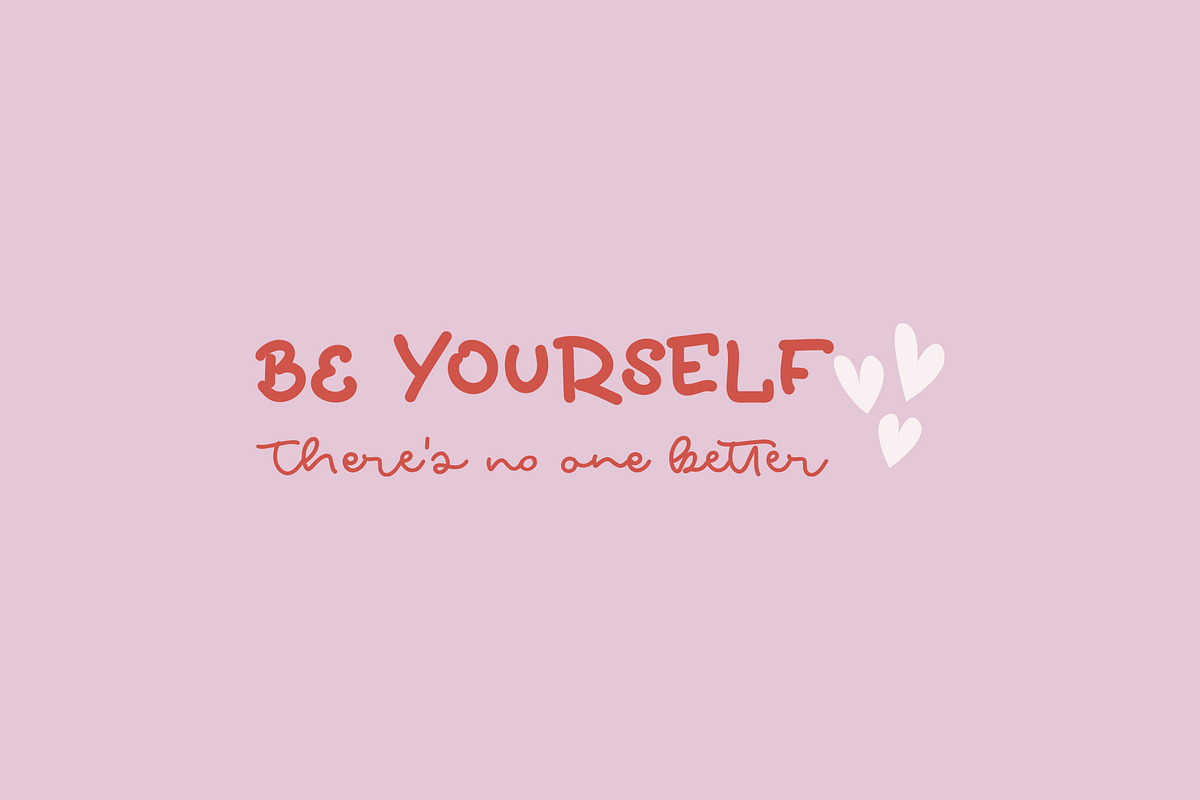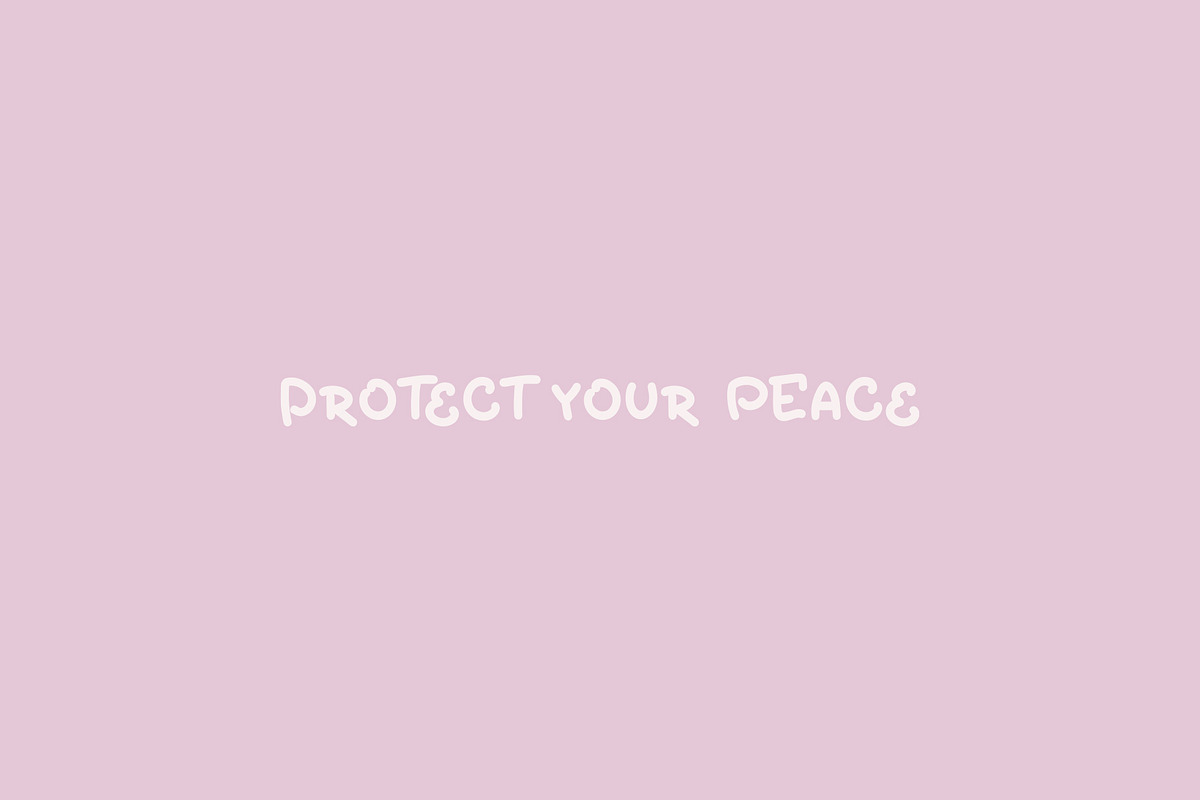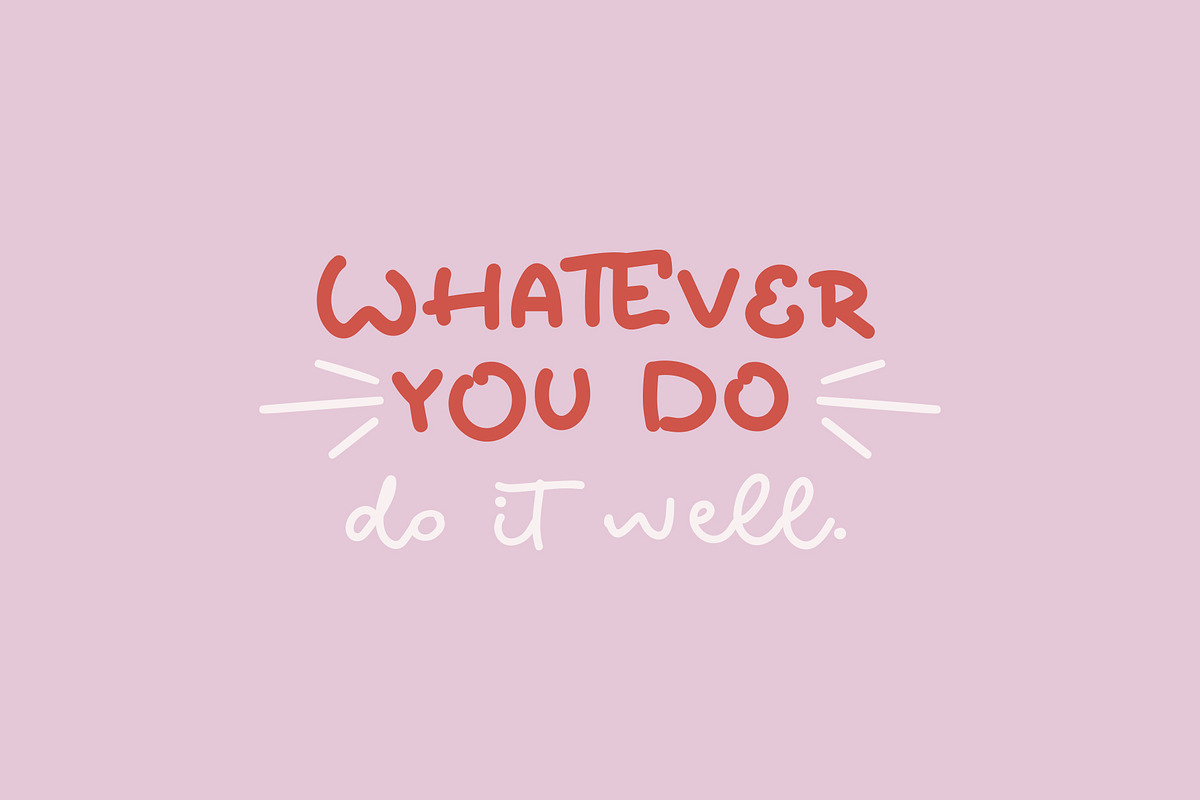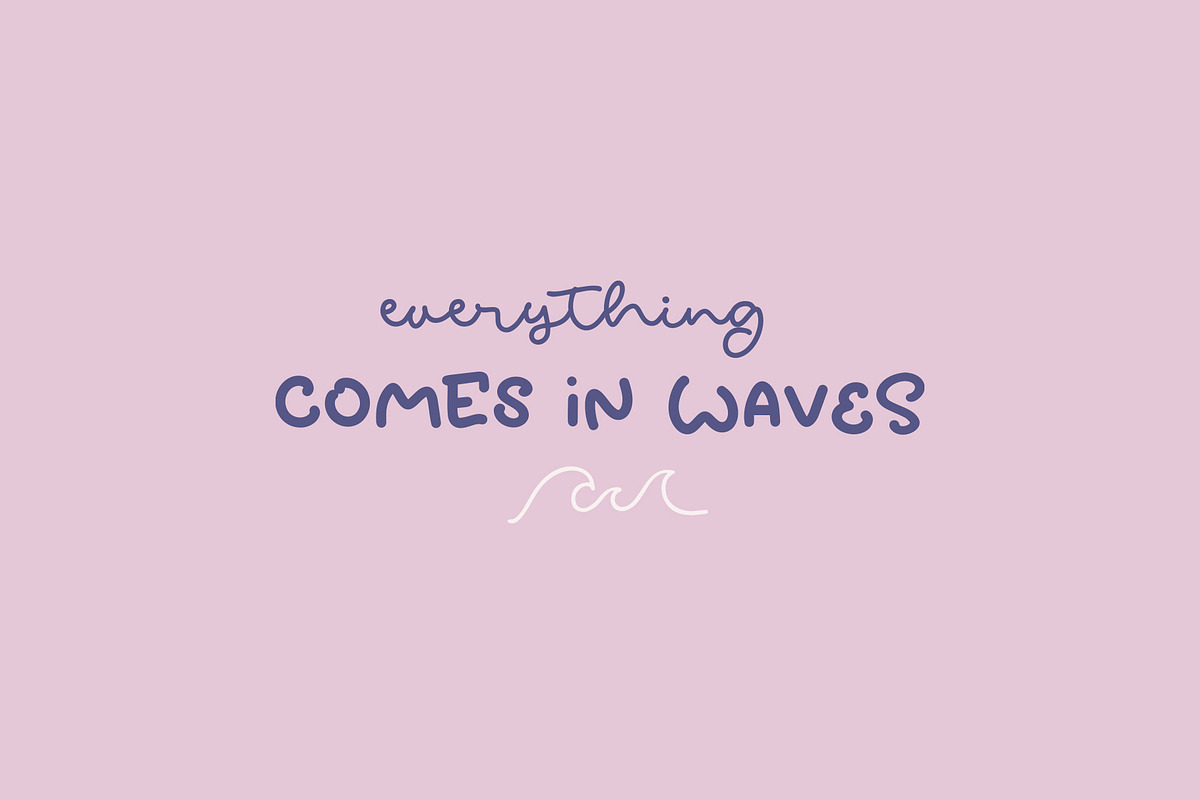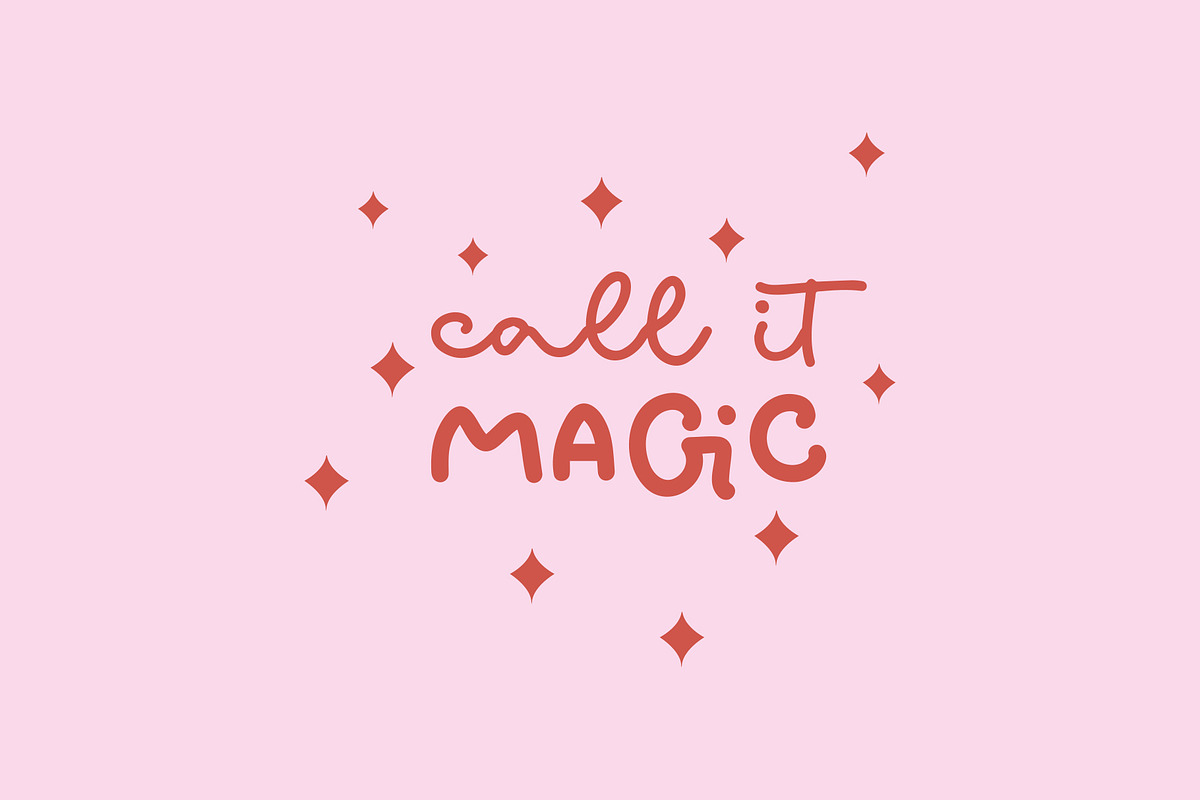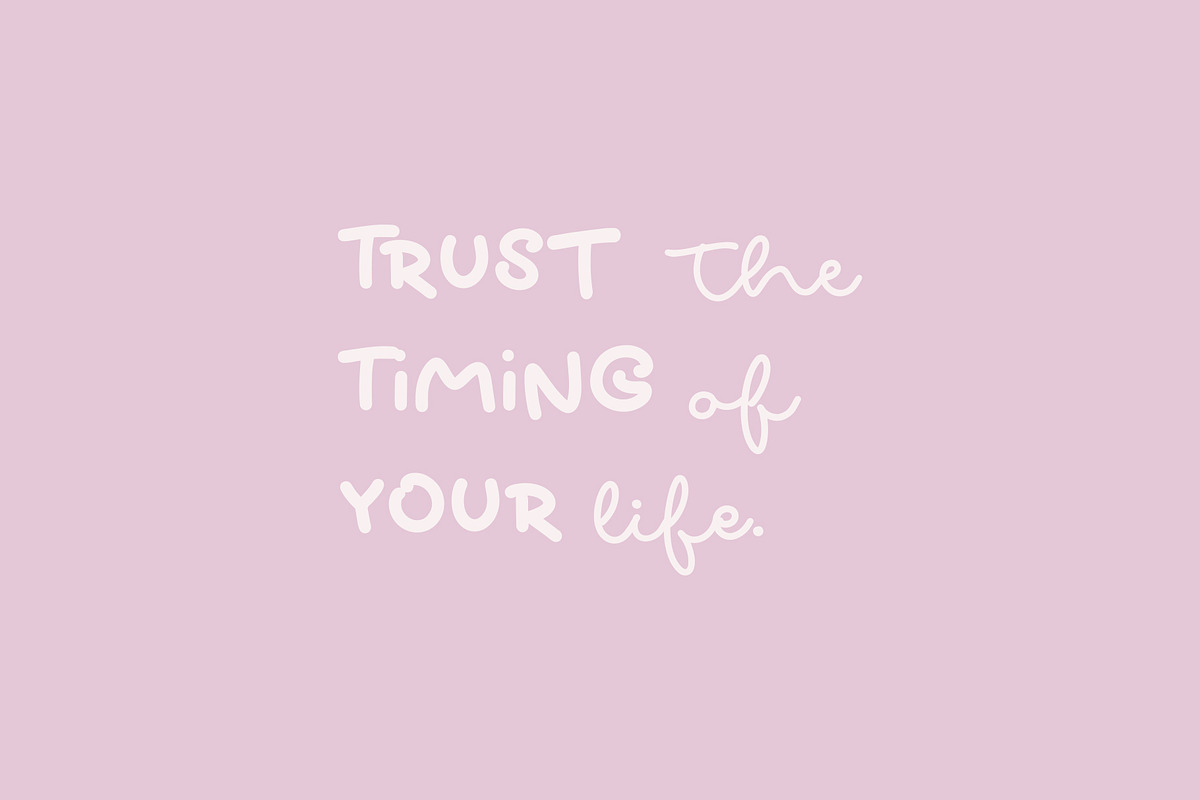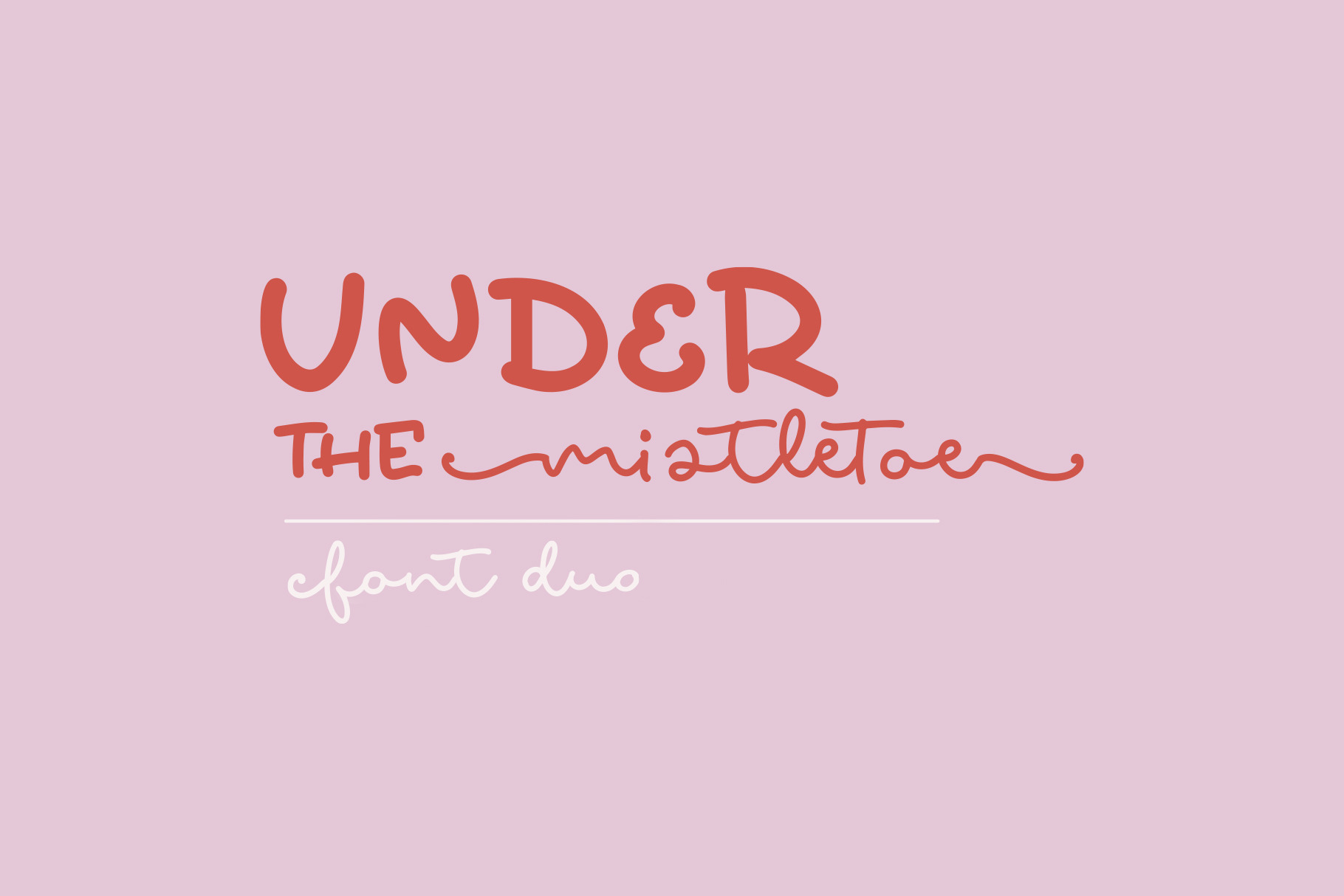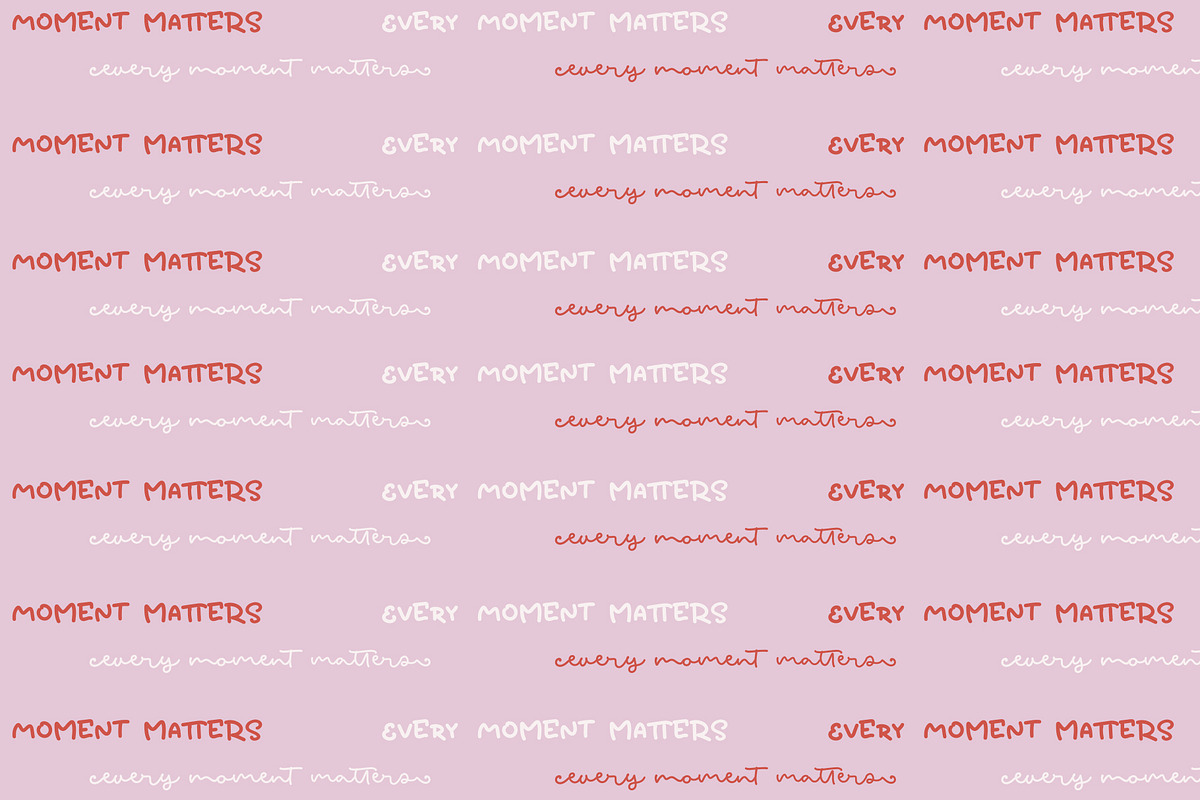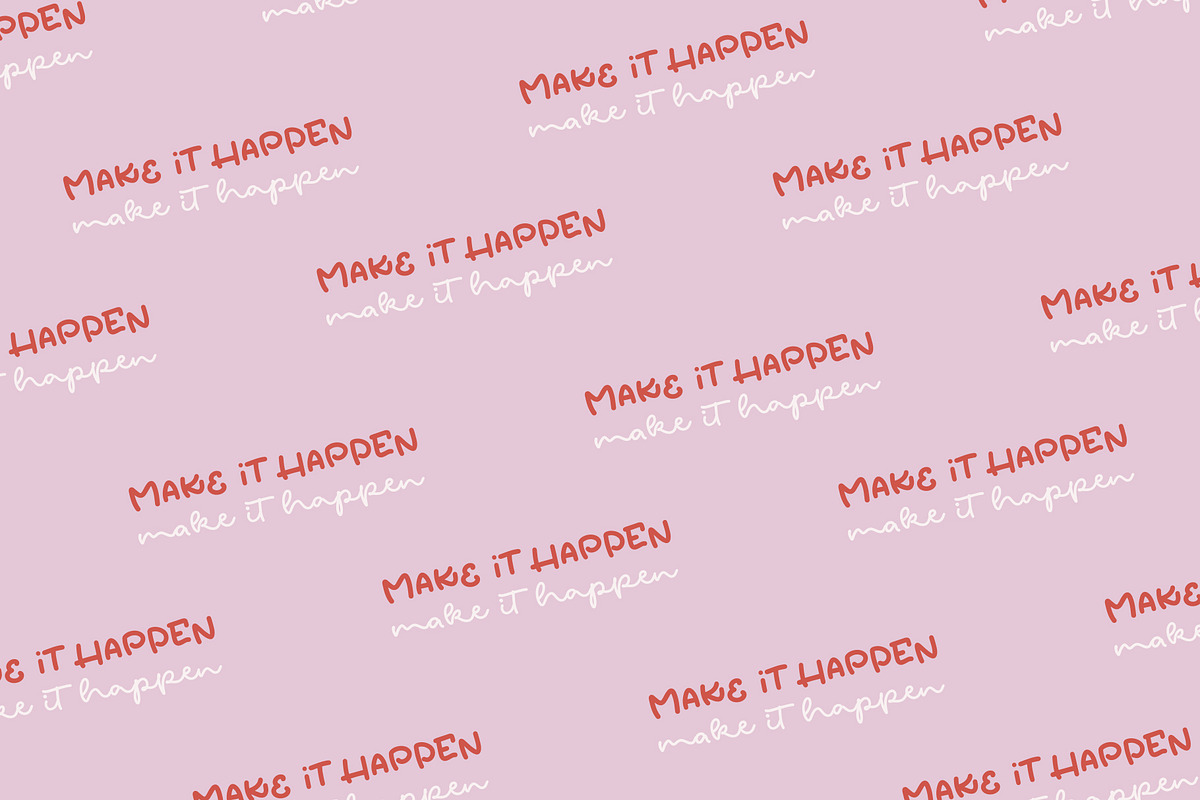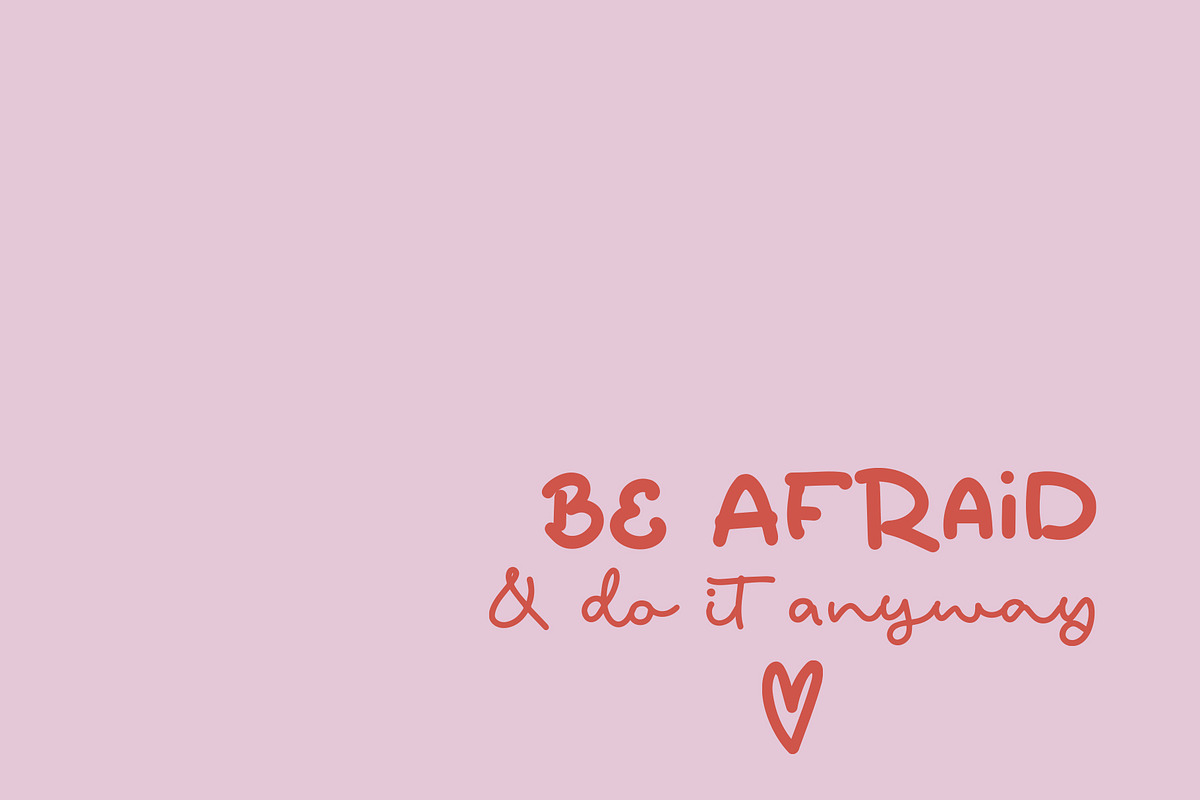
Under The Mistletoe Font Duo
Under The Mistletoe Font Duo- it's a new quotable handwritten font duo with alternates.
Perfect for quotes, cards, social media, logos and other projects